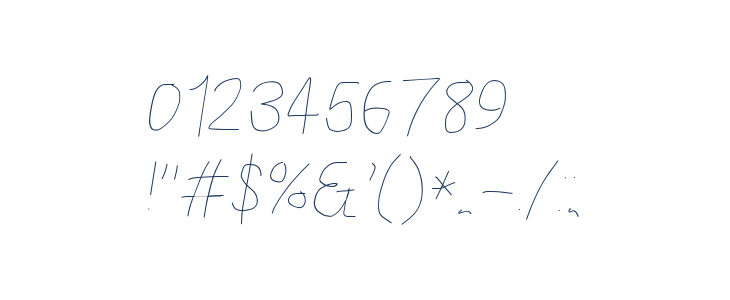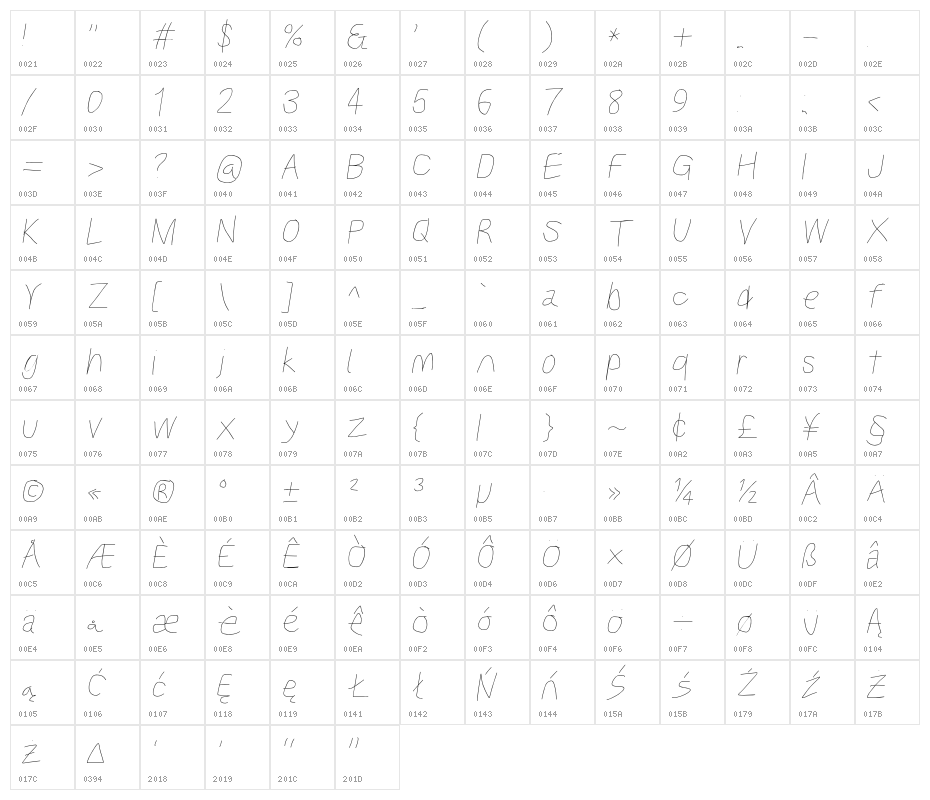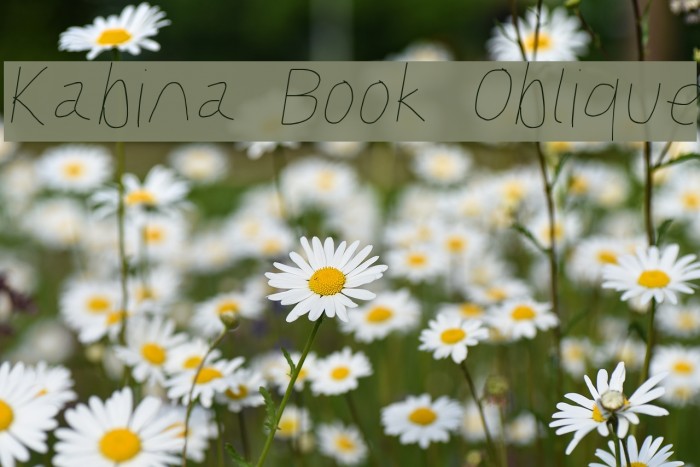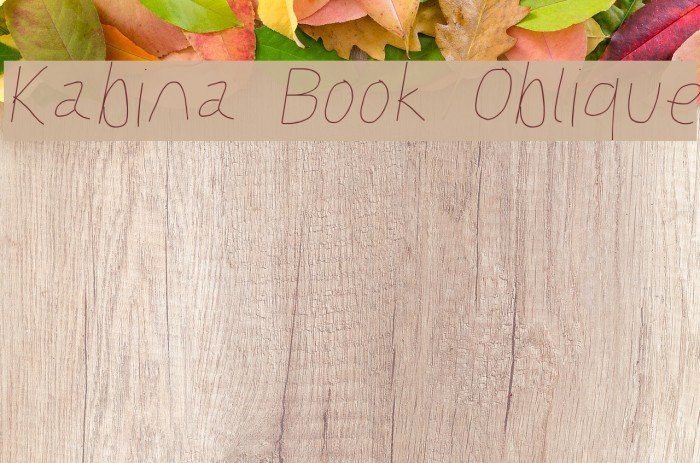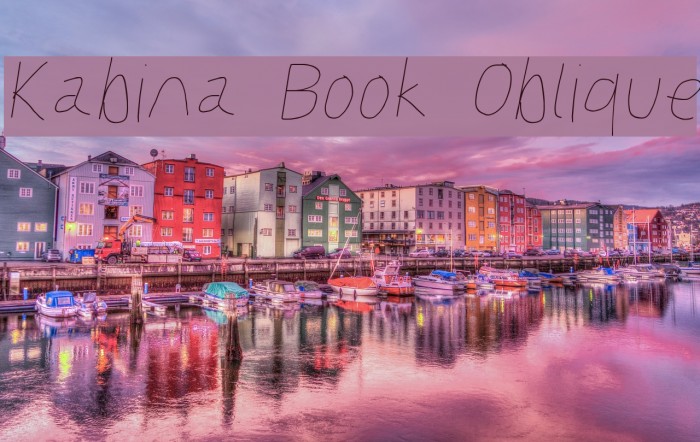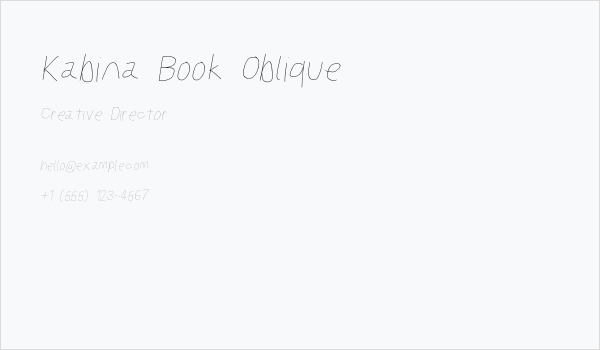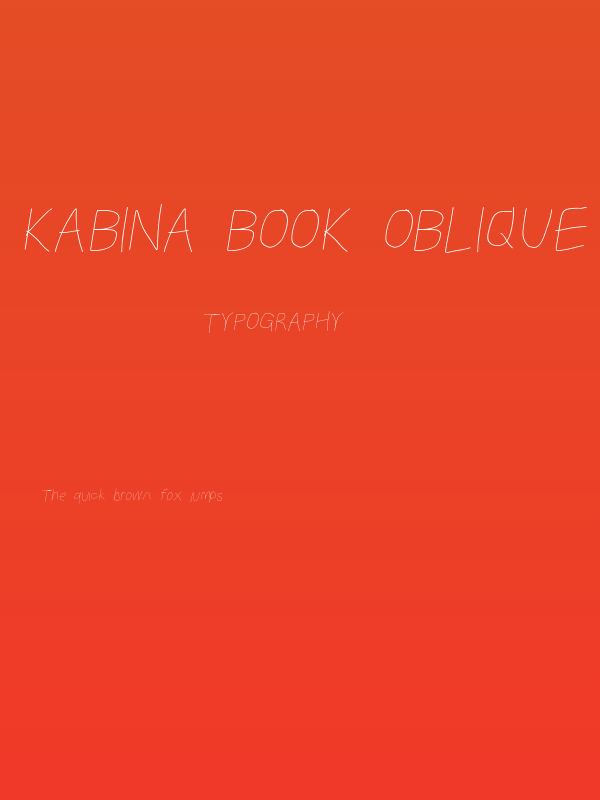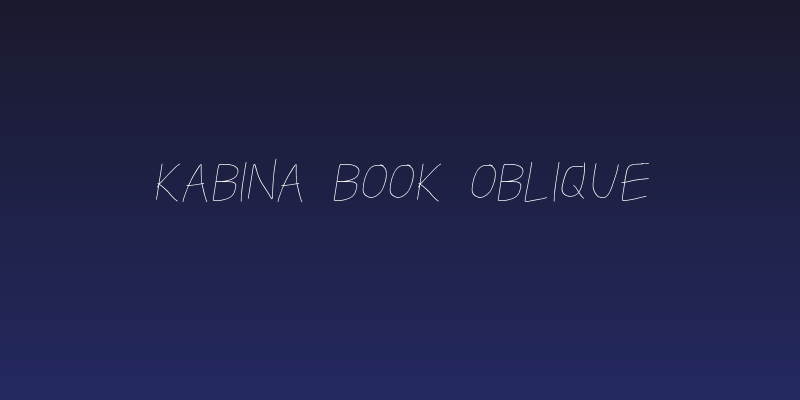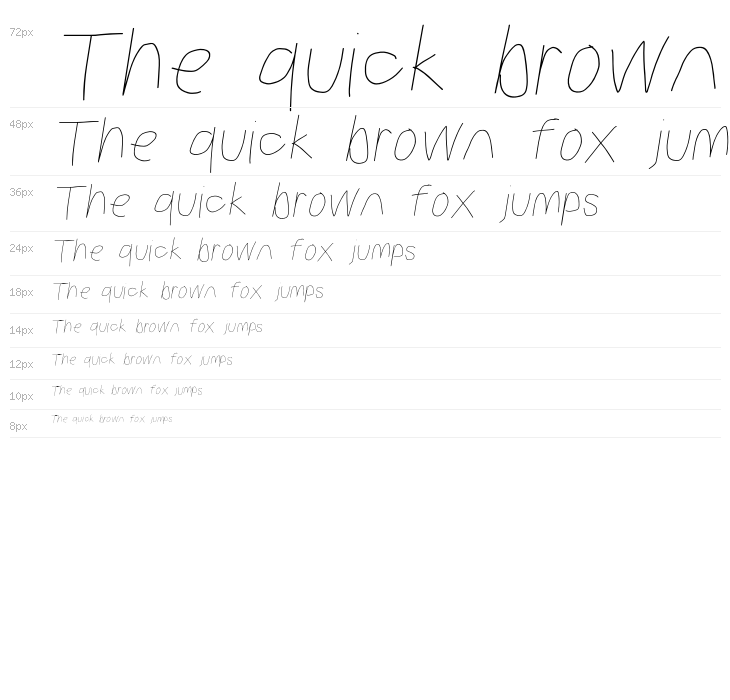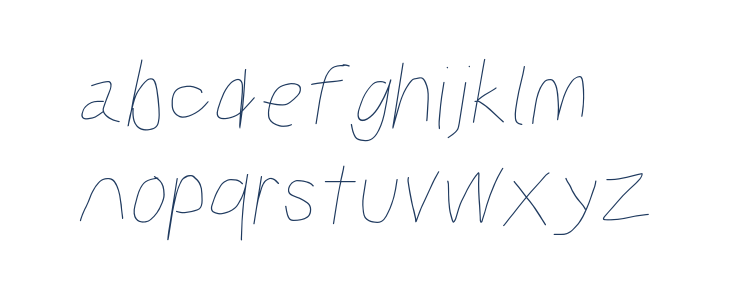
Kabina Book Oblique Font
Kabina Book Oblique Description
This font features a clean and modern handwritten style with a slight oblique slant, giving it a casual yet sophisticated appearance. The characters are thin and elongated, with a consistent stroke width that maintains readability. The uppercase letters are slightly taller than the lowercase, and the numerals are proportionate, ensuring a balanced look across different text sizes. The special characters are well-integrated, matching the overall aesthetic of the font. Its simplicity and elegance make it versatile for various design projects.